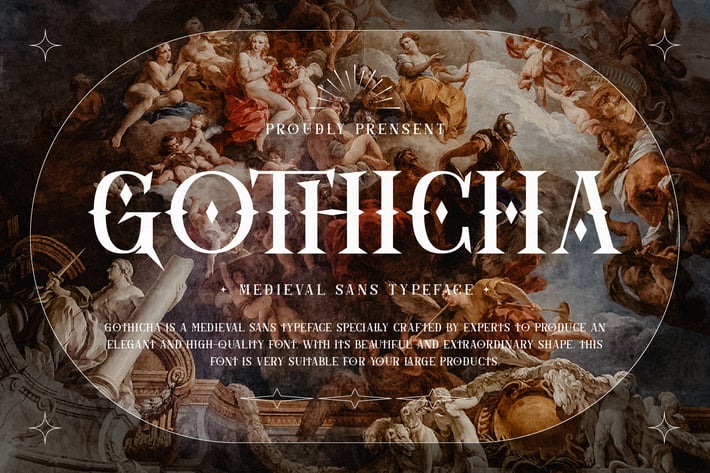
Gothicha Sans Business Font
Gothicha is a medieval sans typeface specially crafted by experts to produce an elegant and high-quality font. With its beautiful and extraordinary shape, this font is very suitable for your large products.
Gothicha is perfect for branding projects, logo, wedding designs, social media posts, advertisements, product packaging, product designs, label, photography, watermark, invitation, stationery and any projects that need handwriting taste.
Ton of glyphs
Ligature & Alternate